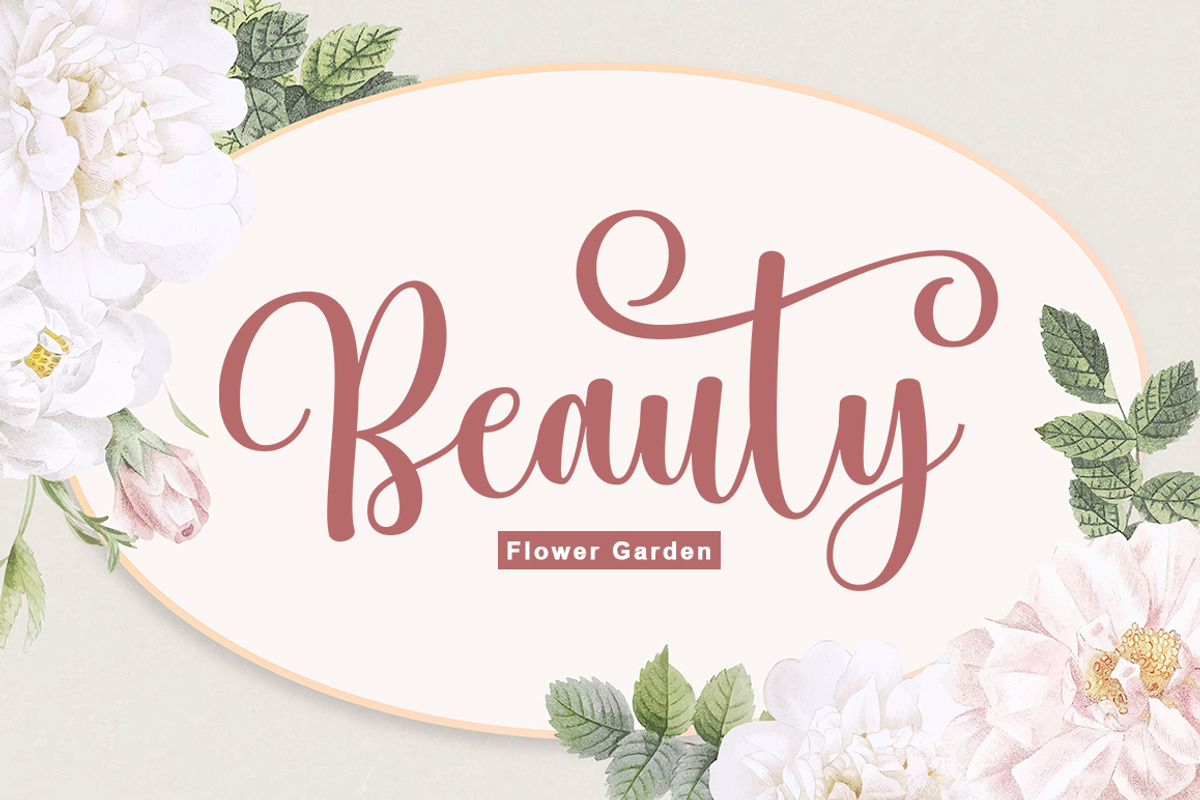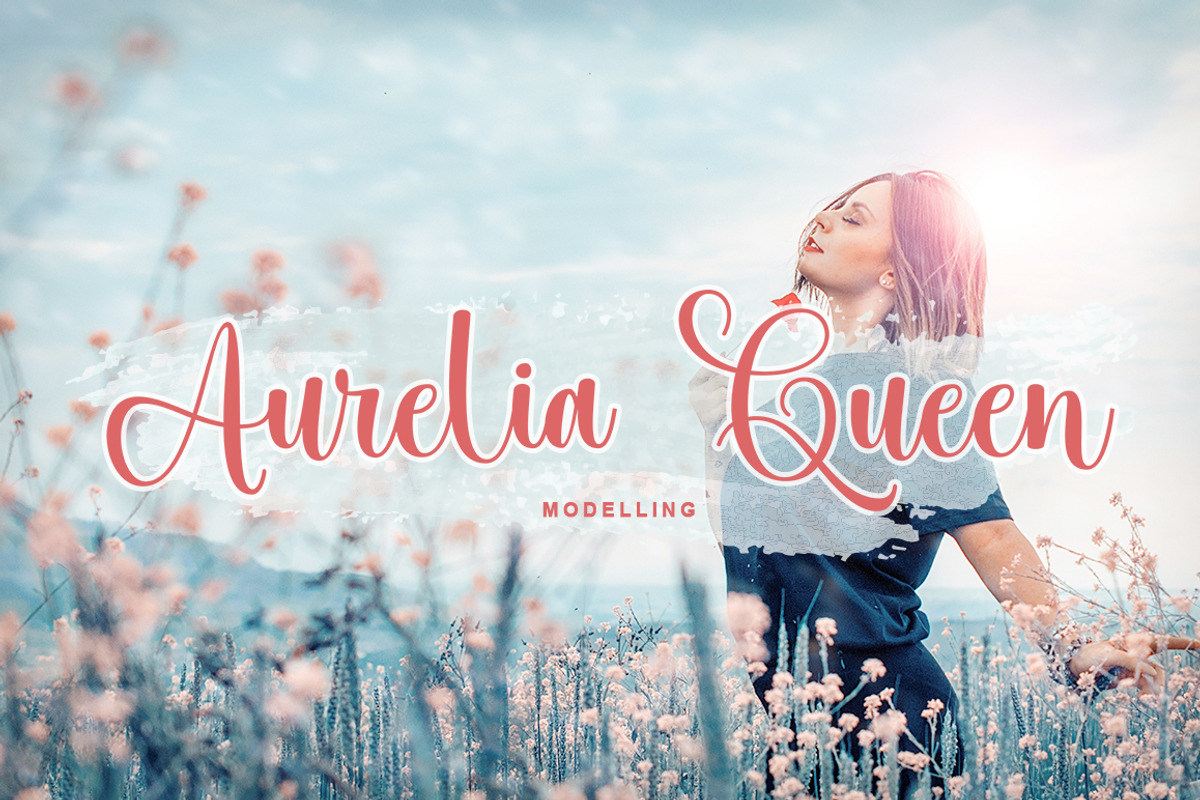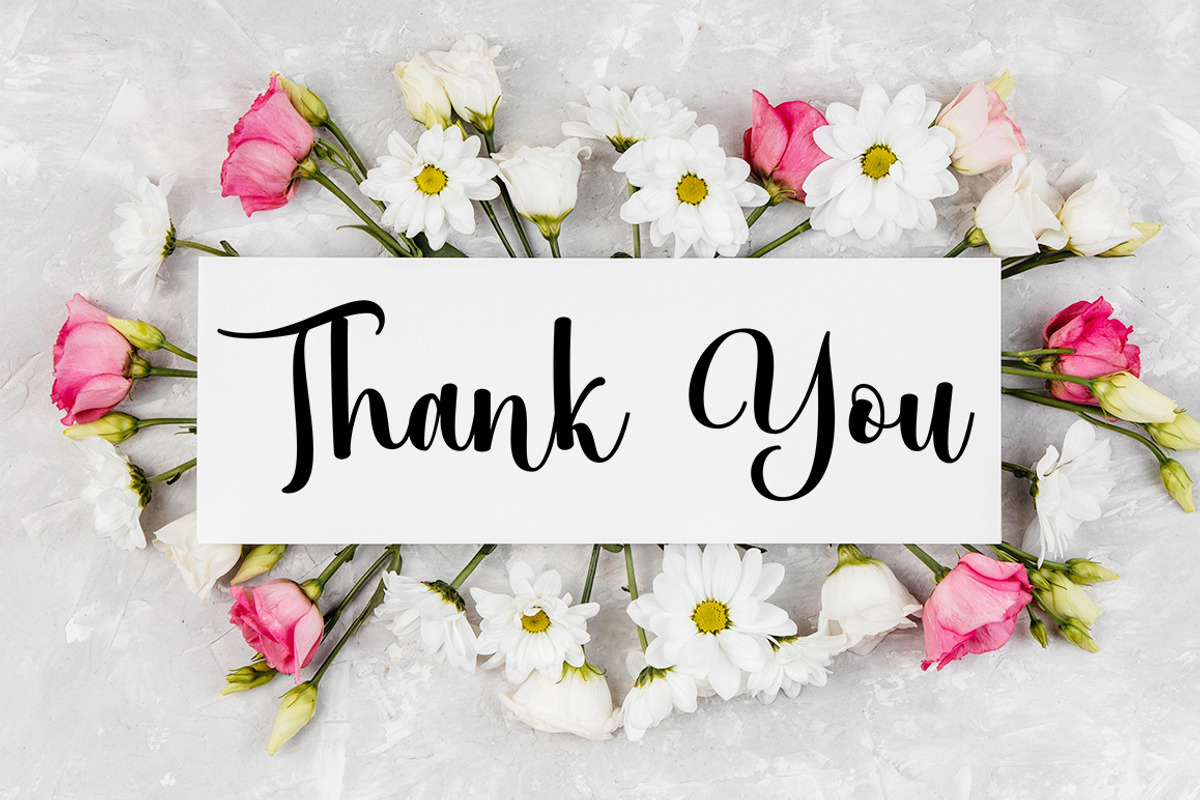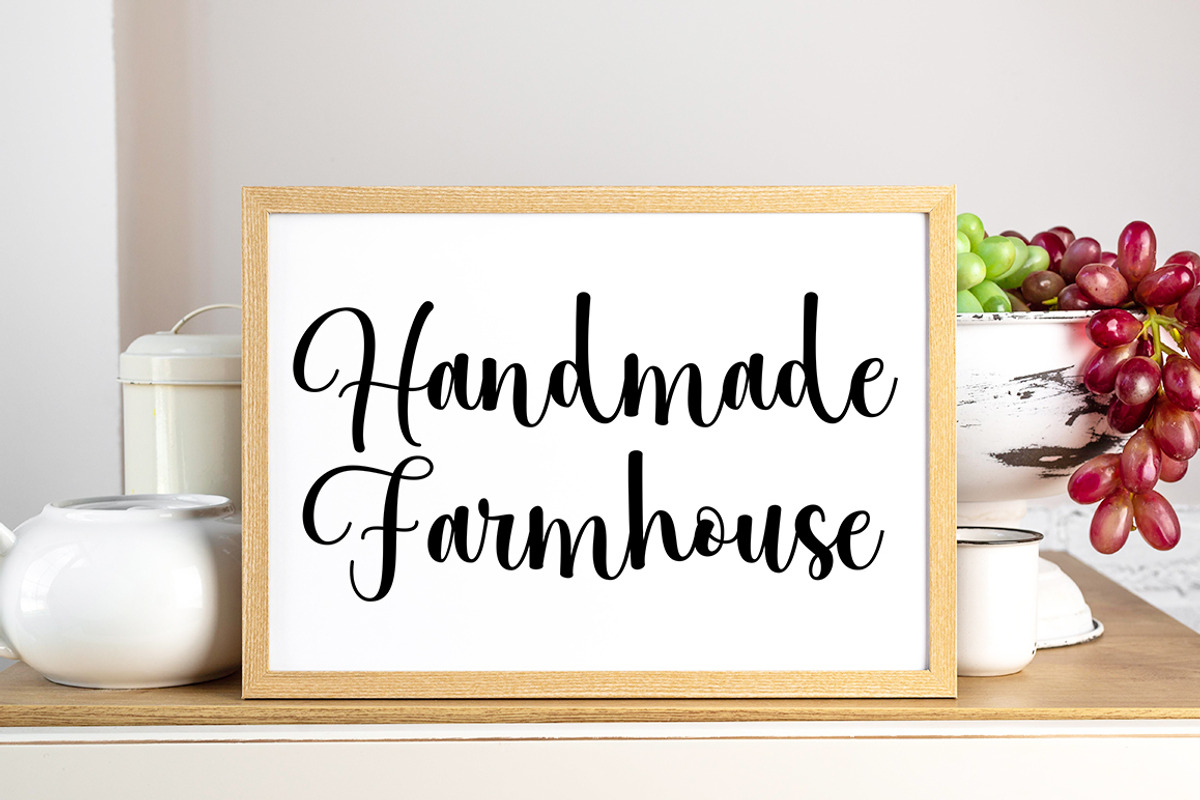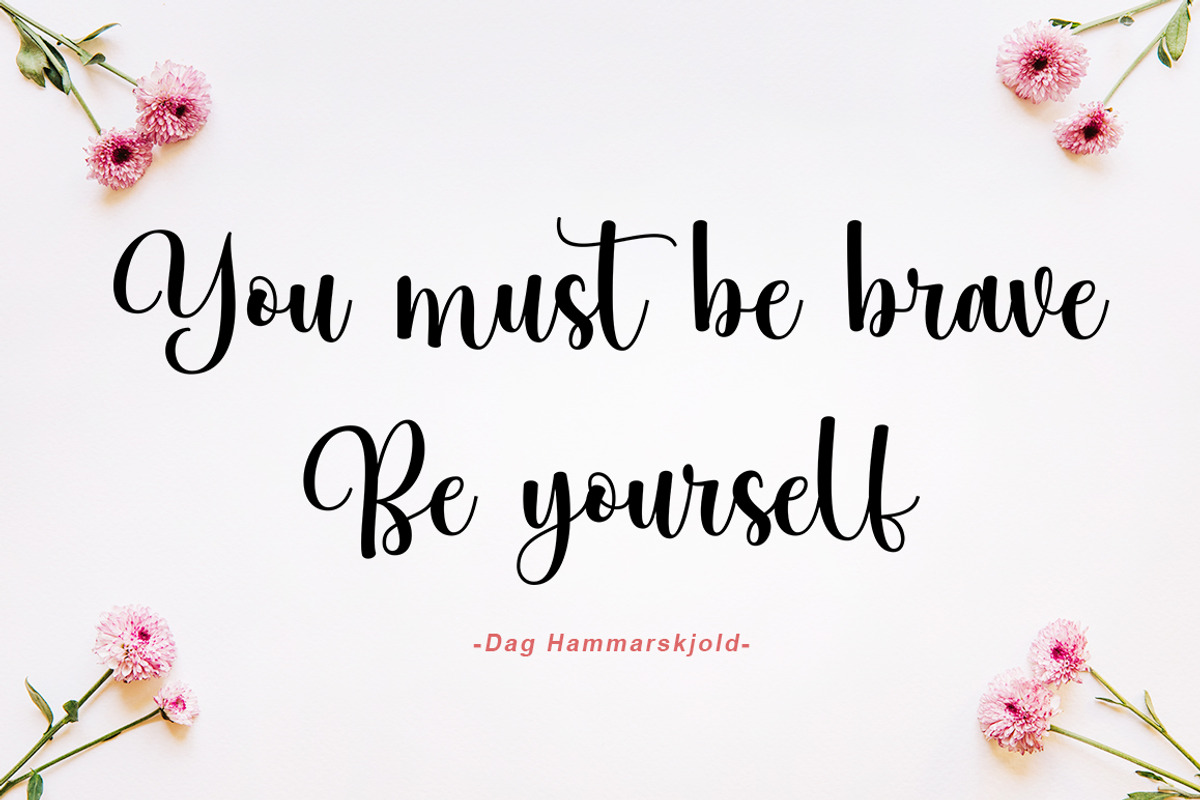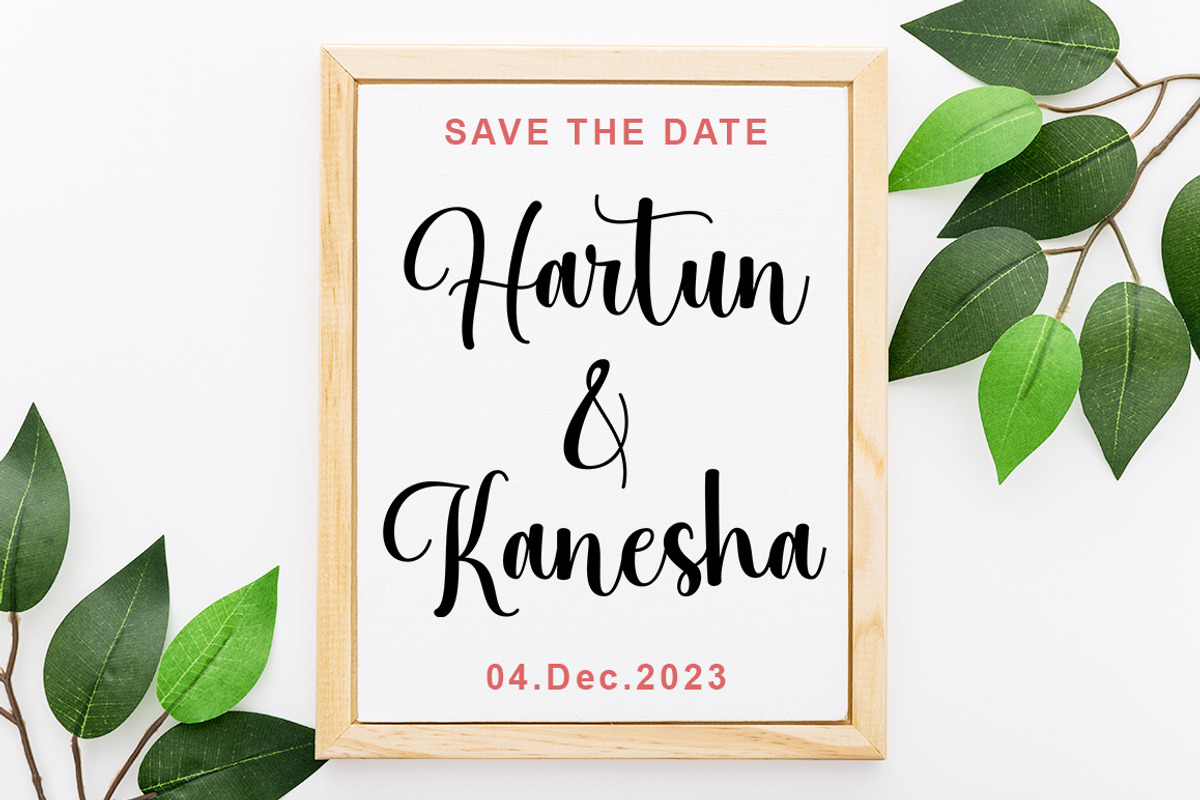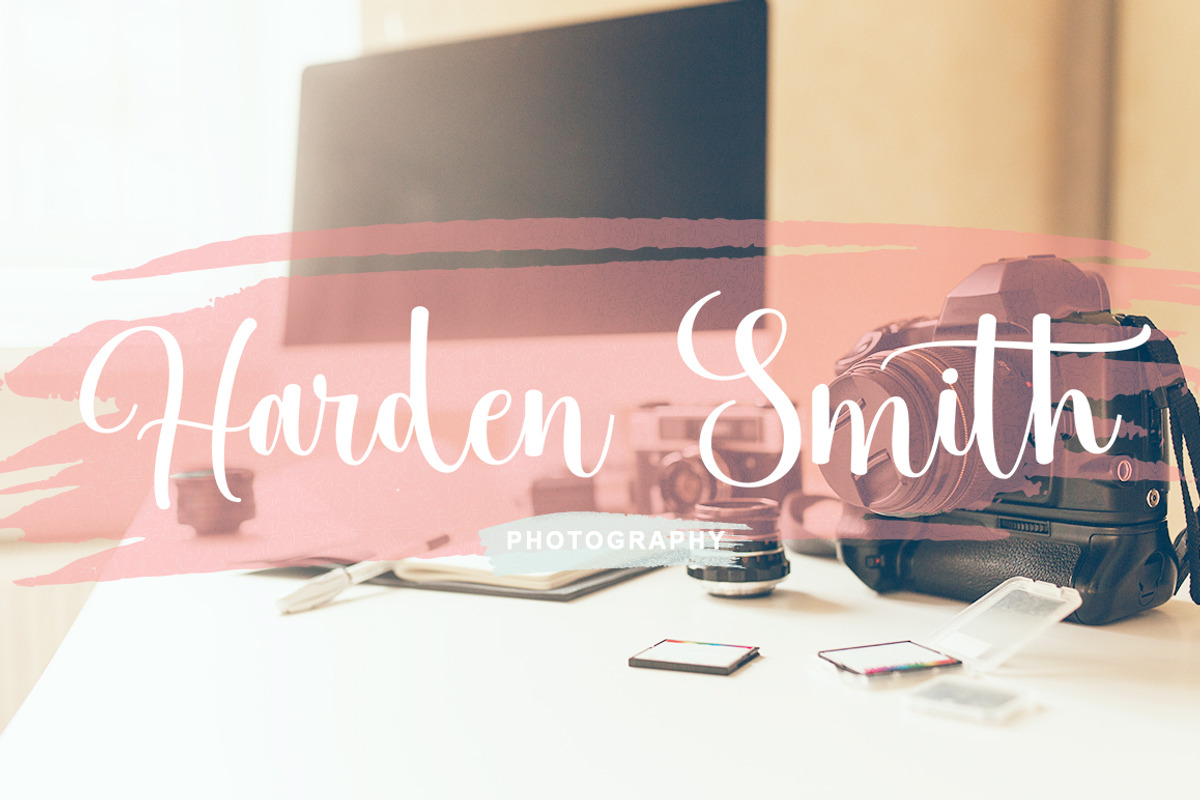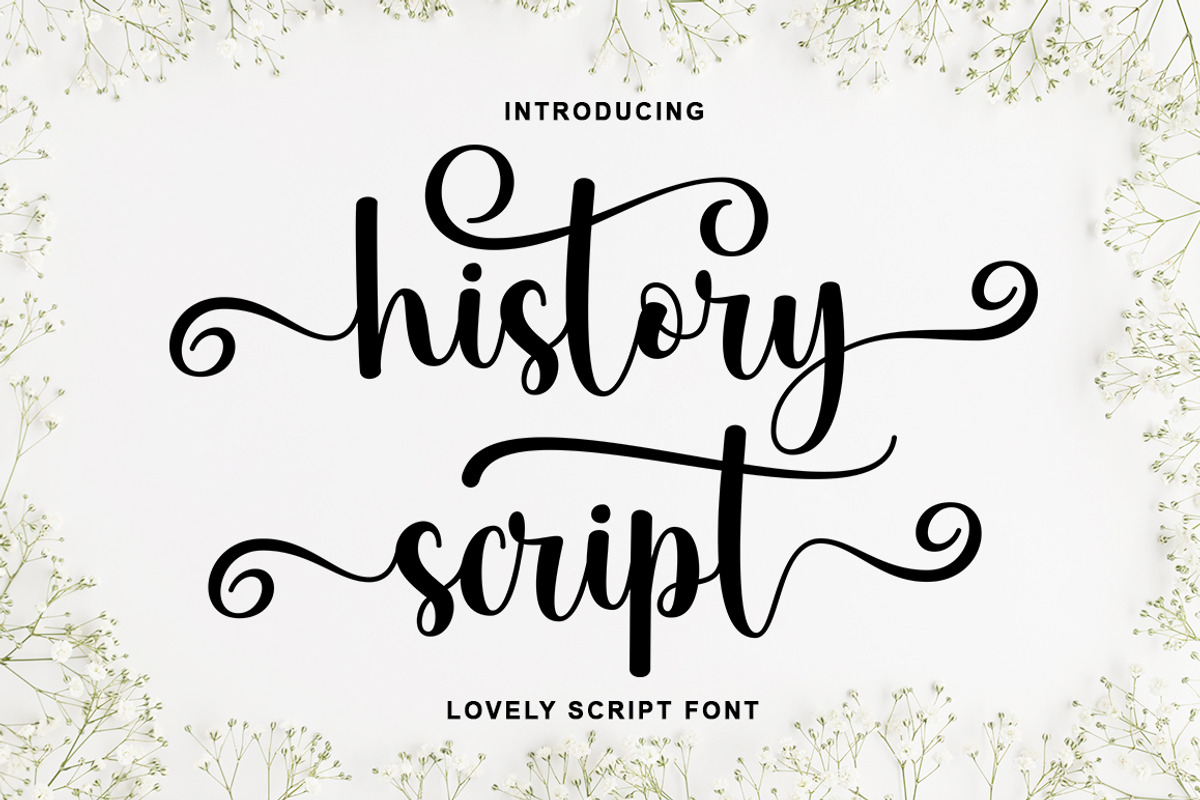
History Script
Introducing!!!
History Script is a beautiful, modern calligraphy font with a dancing baseline. This hand-lettered script will look gorgeous on all your designs, wedding invites, branding materials, logo's, business cards and quotes.
History Script contains standard characters, lowercase, uppercase, numbers, punctuation, ligatures and international characters. This font also comes with two sets of alternate lowercase characters with initial and end swashes.